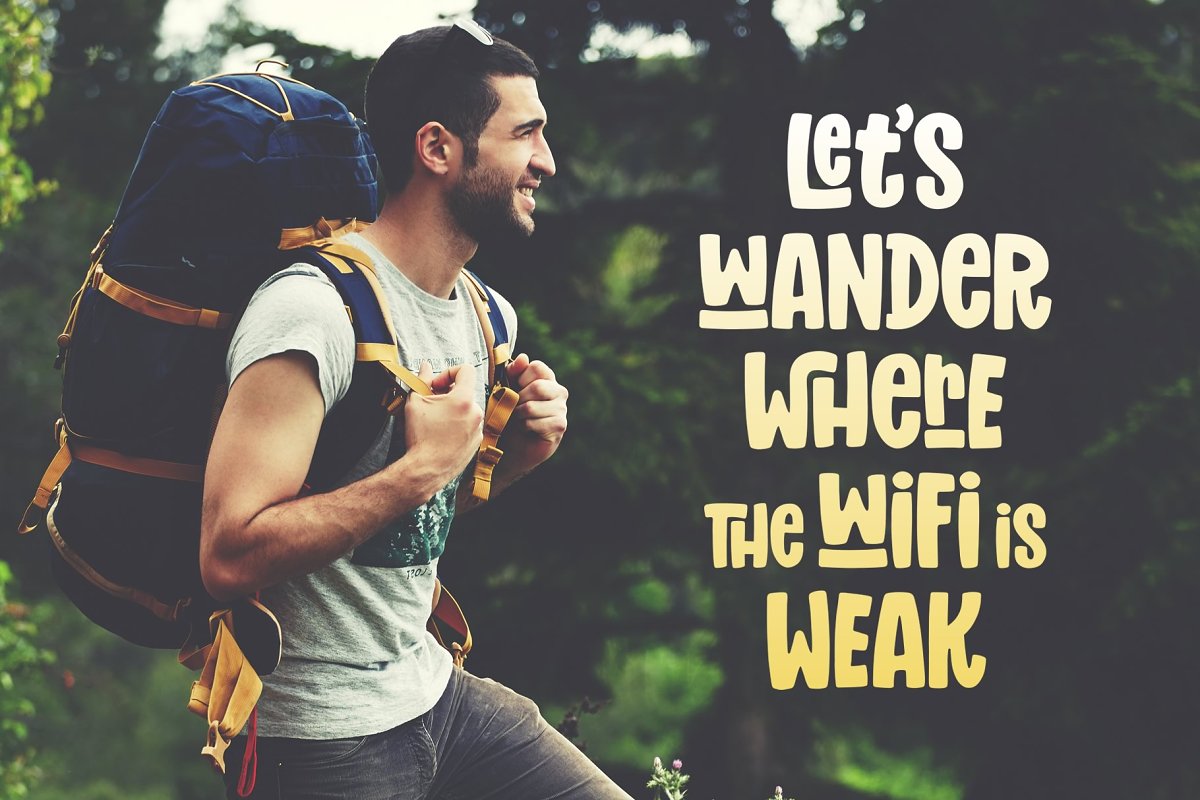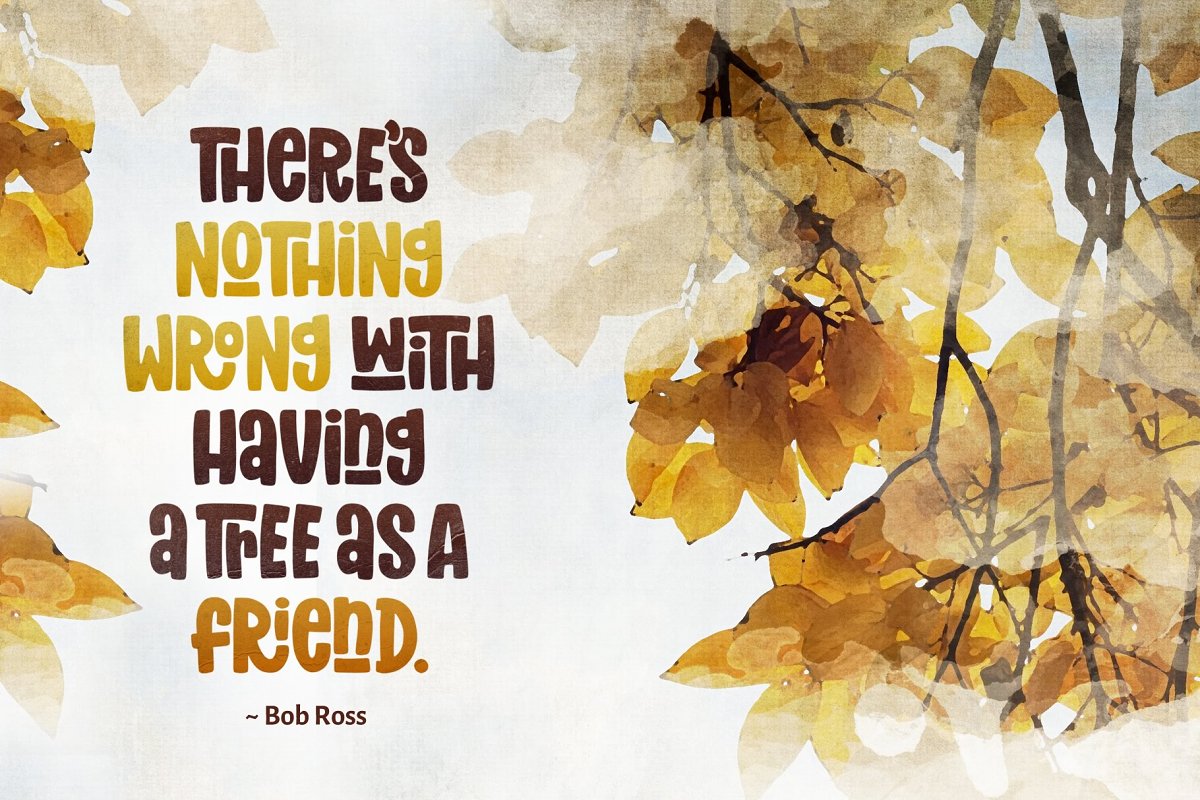
About the Mighty Mountain Font
Mighty Mountain is a hand-drawn font that comes with a bunch of interlocking and stacked characters, In programs that support Open Type features, Mighty Mountain will automatically create interlocking characters, Use Mighty Mtn Single and Might Mtn Multiple in programs without Open Type features or to pick and choose which ligatures you want to include